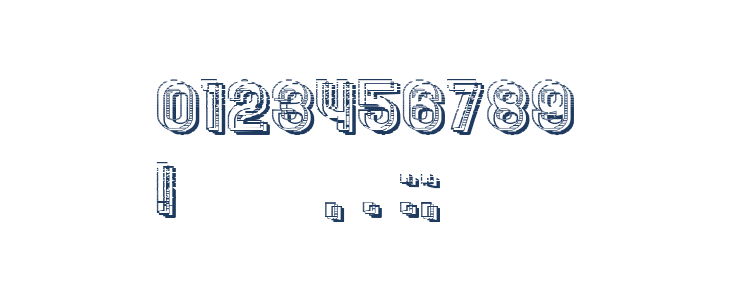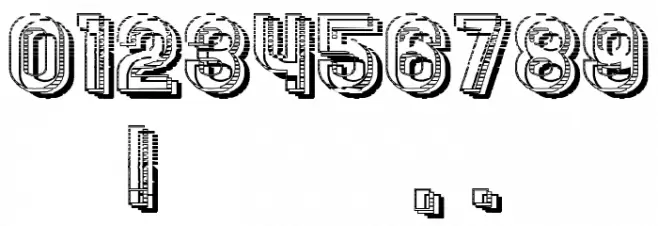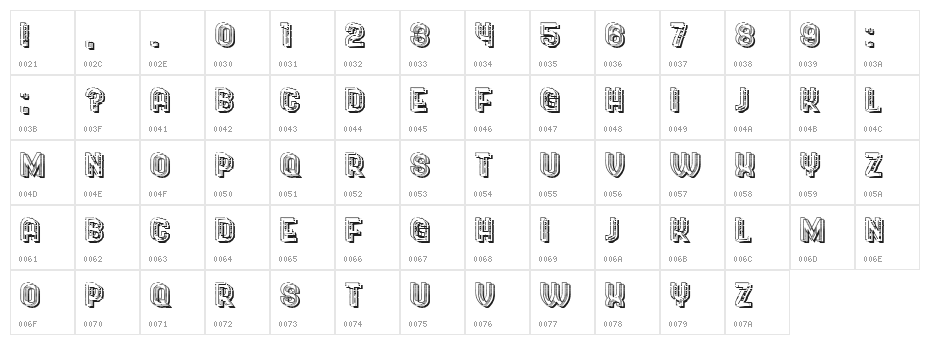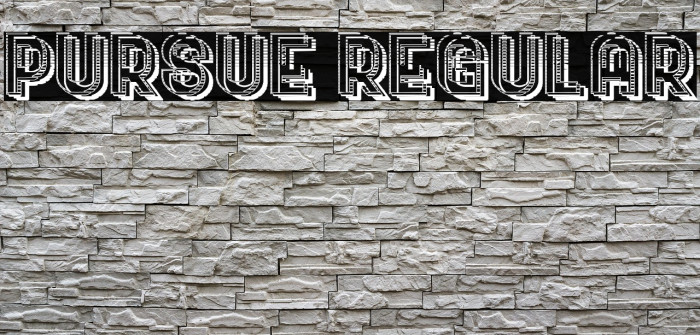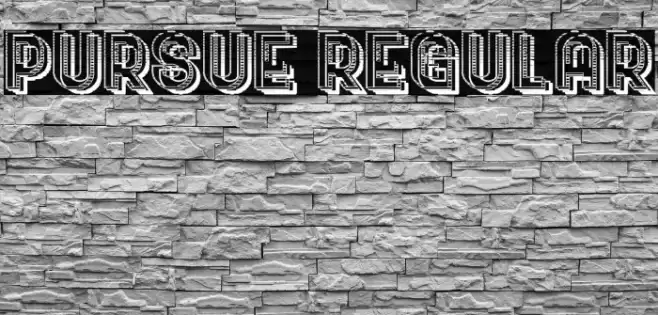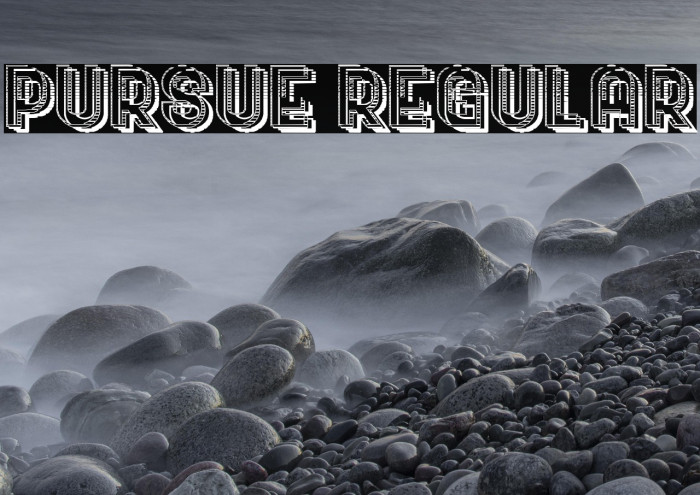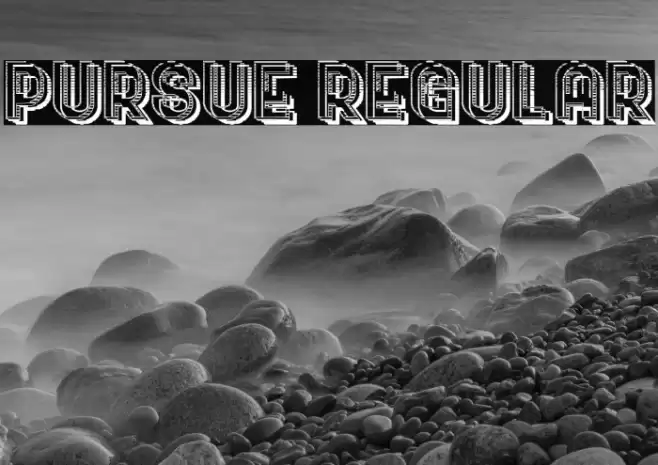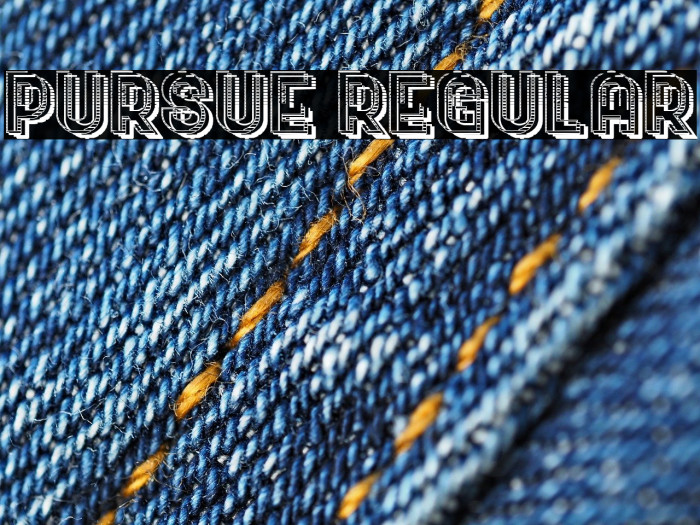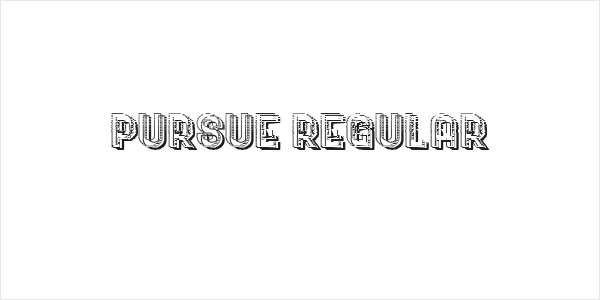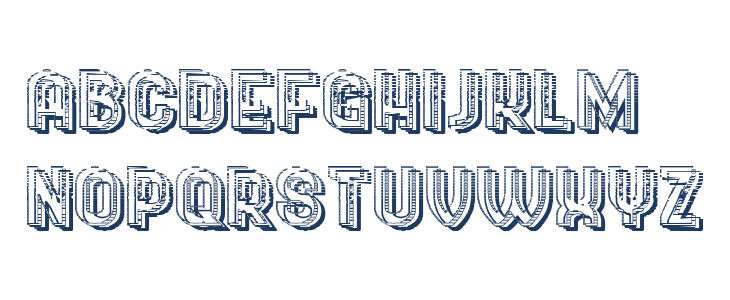
Pursue Regular Font
Pursue Regular Description
This font features a bold, three-dimensional style with a distinct outline and shadow effect, giving it a striking and dynamic appearance. The characters are uppercase and lowercase alphabets, along with numerals and a selection of special characters. Each letter is designed with a blocky, geometric structure, enhanced by the layered shadow that adds depth and a sense of movement. The font's playful yet robust design makes it suitable for eye-catching displays and creative projects.
| Proposed Projects | Ideal for posters, headlines, logos, and any project requiring a bold, attention-grabbing typeface. |